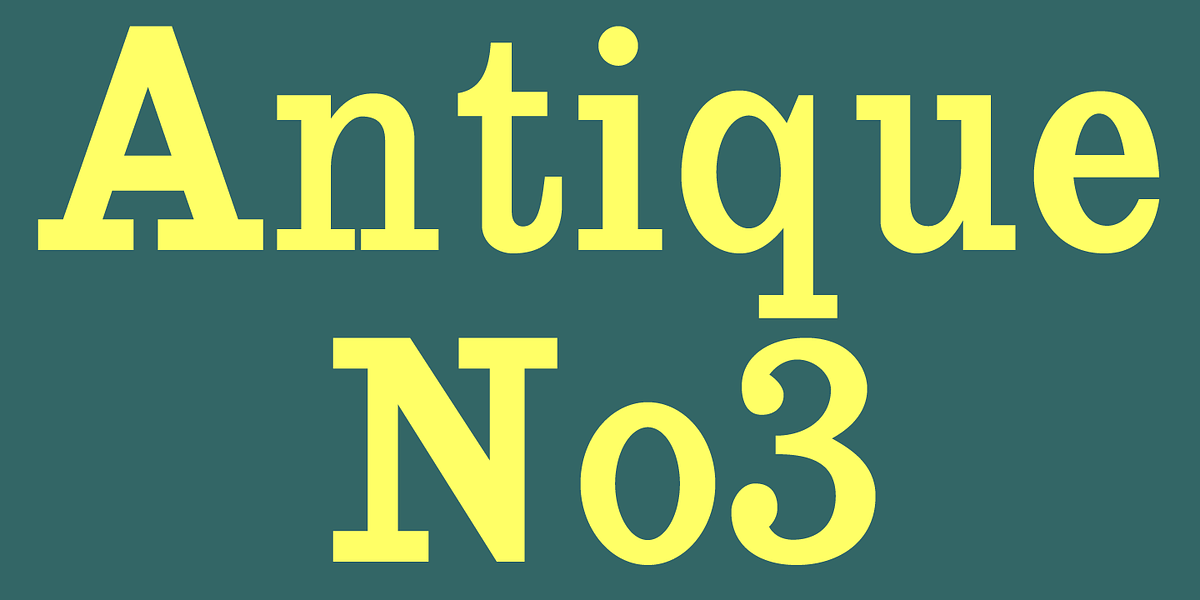
Antique No3
This is a bold, high-contrast serif font with ball terminals. Its grotesque slab style makes it ideal for eye-catching headlines and posters. The font's strong presence would also lend itself well to branding applications.